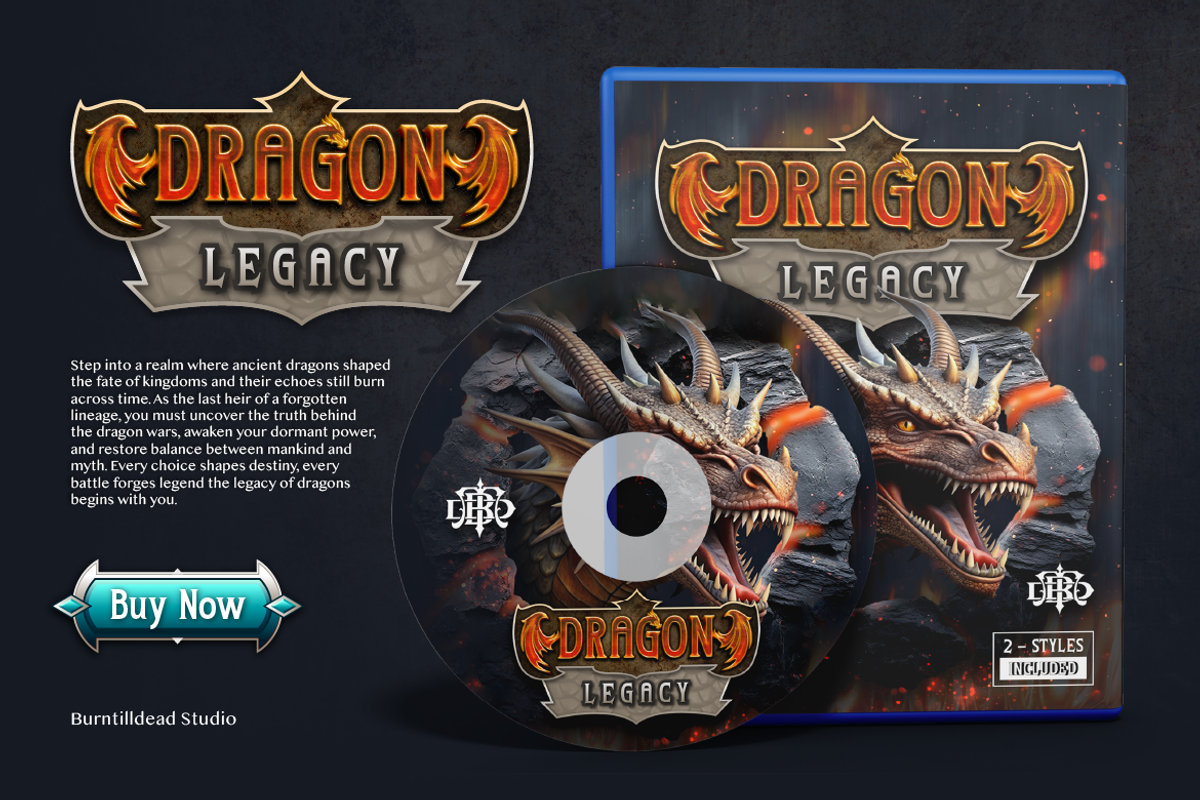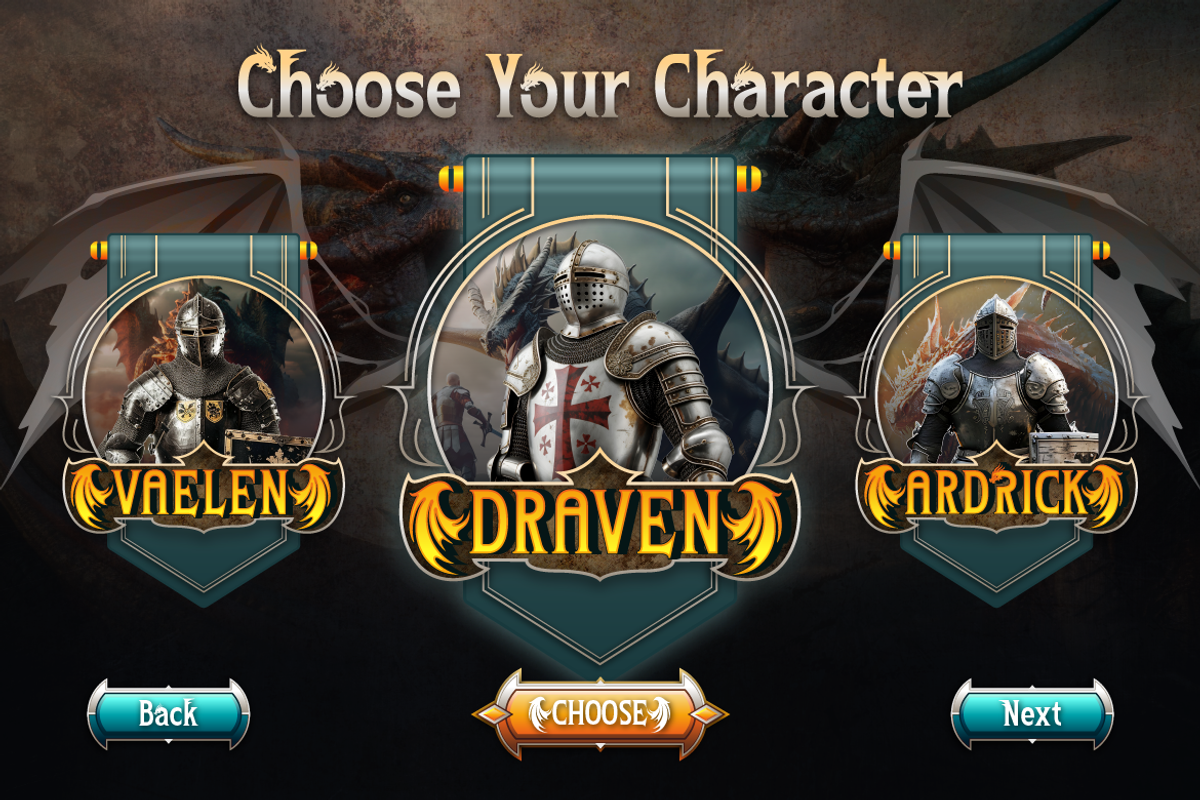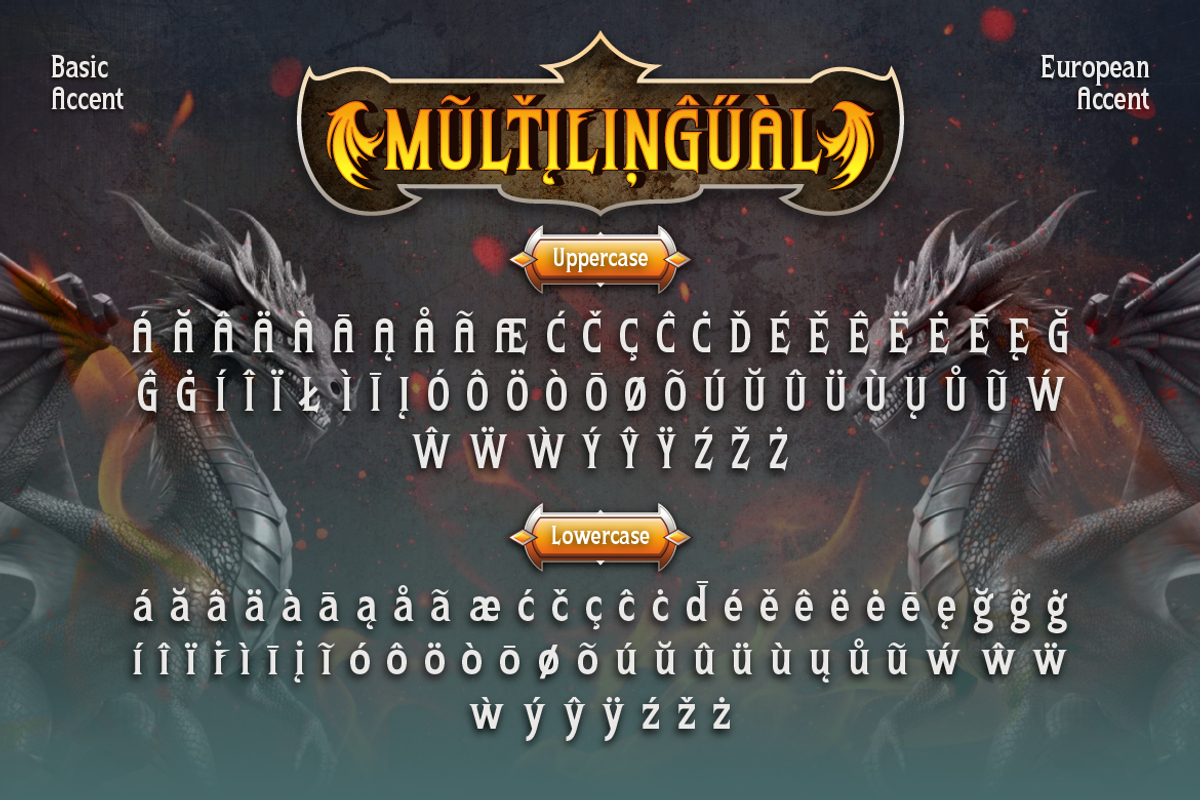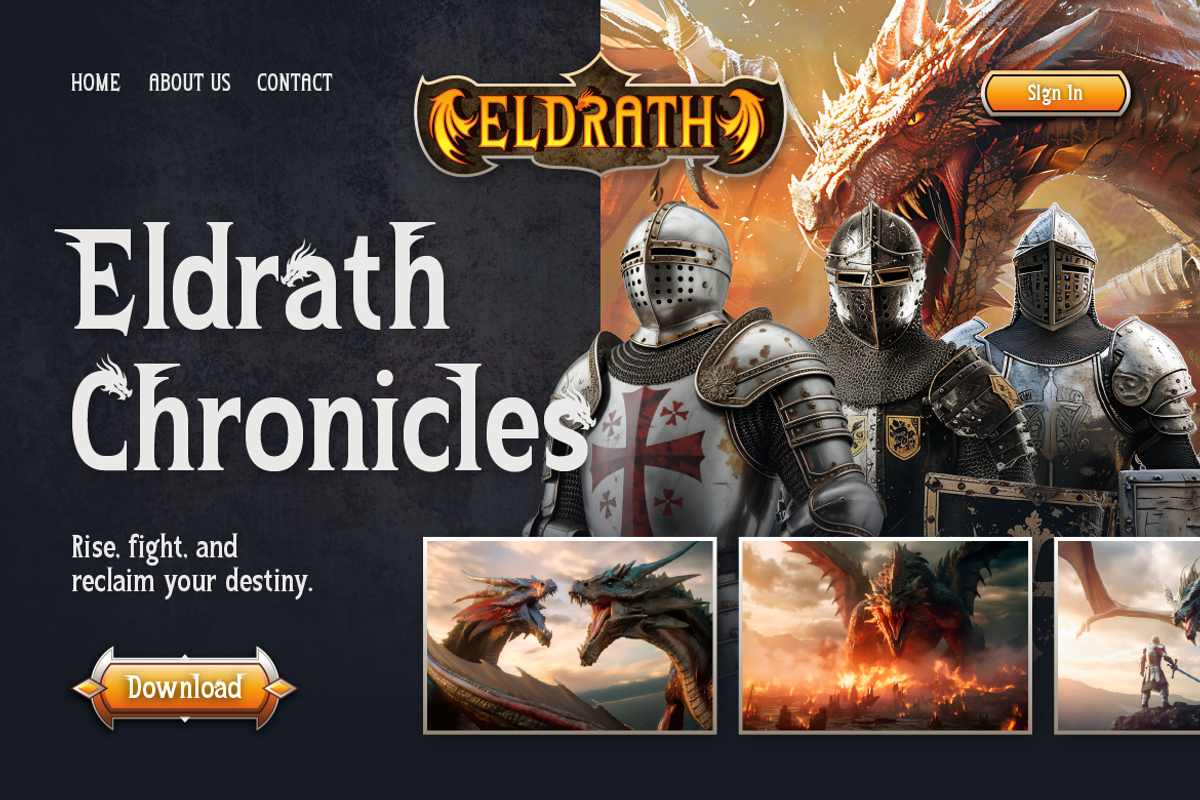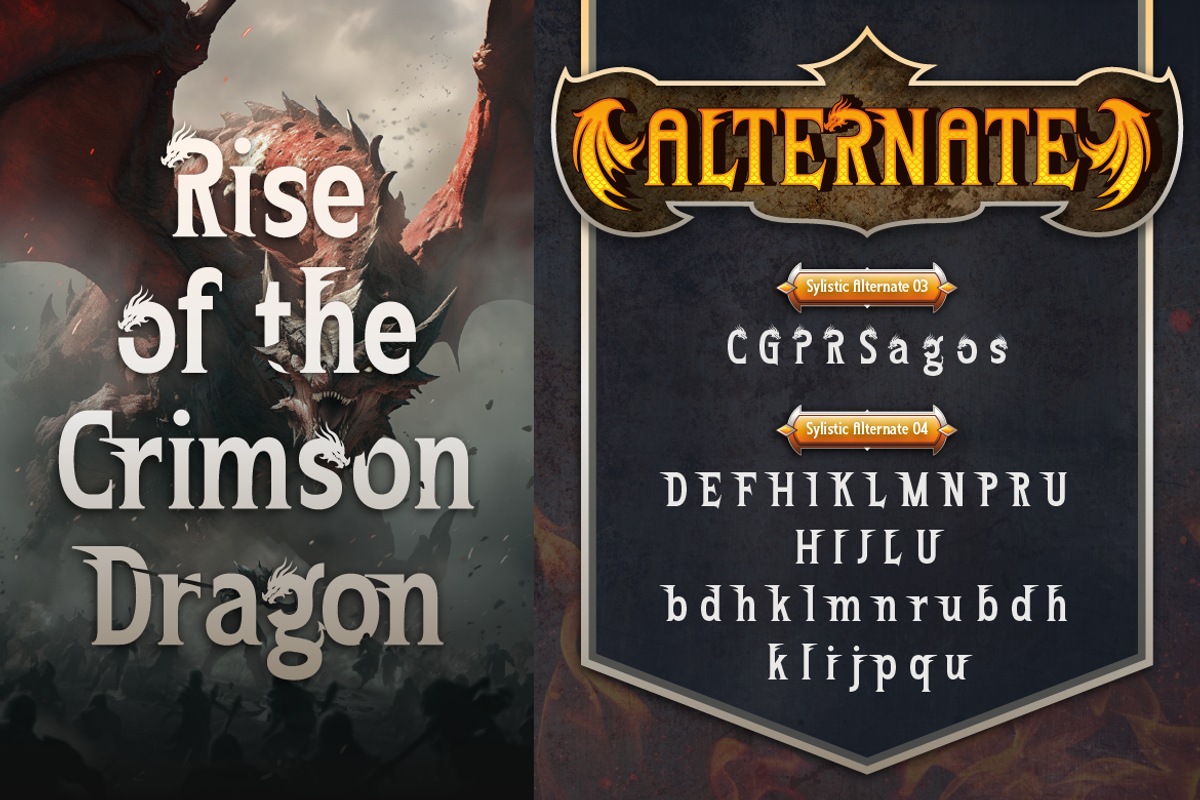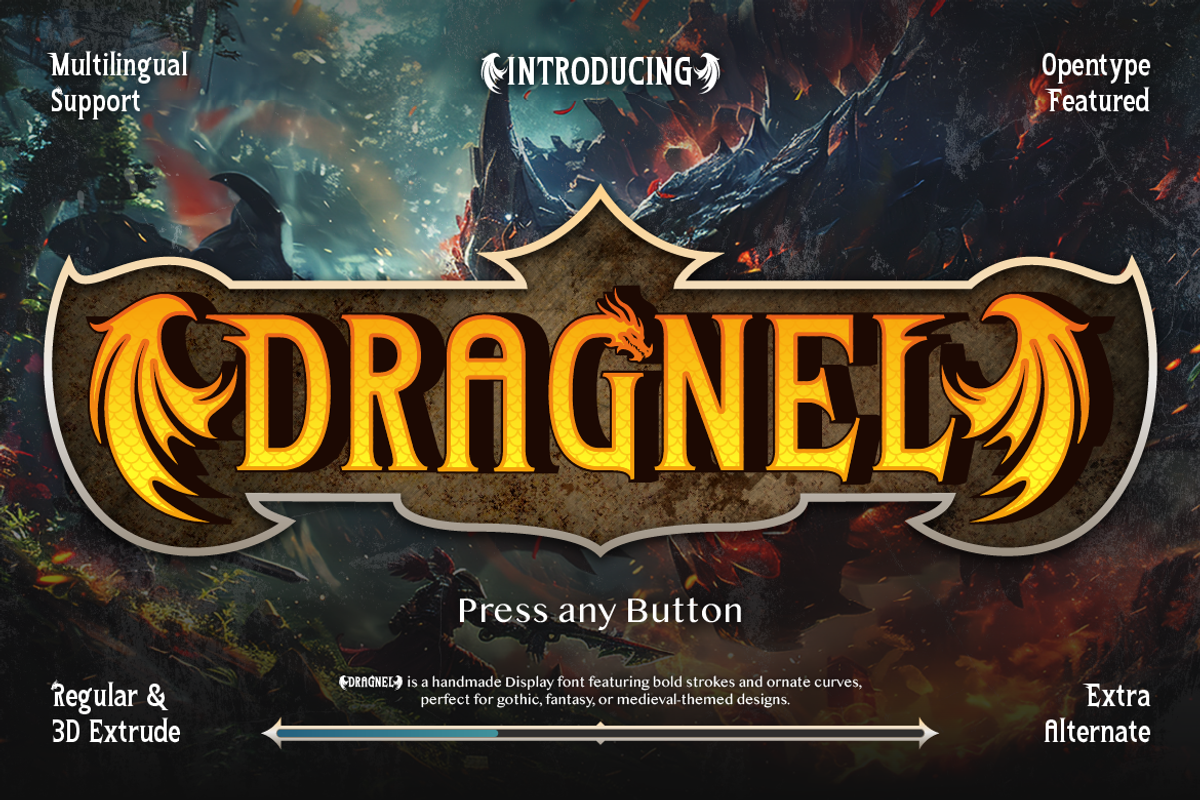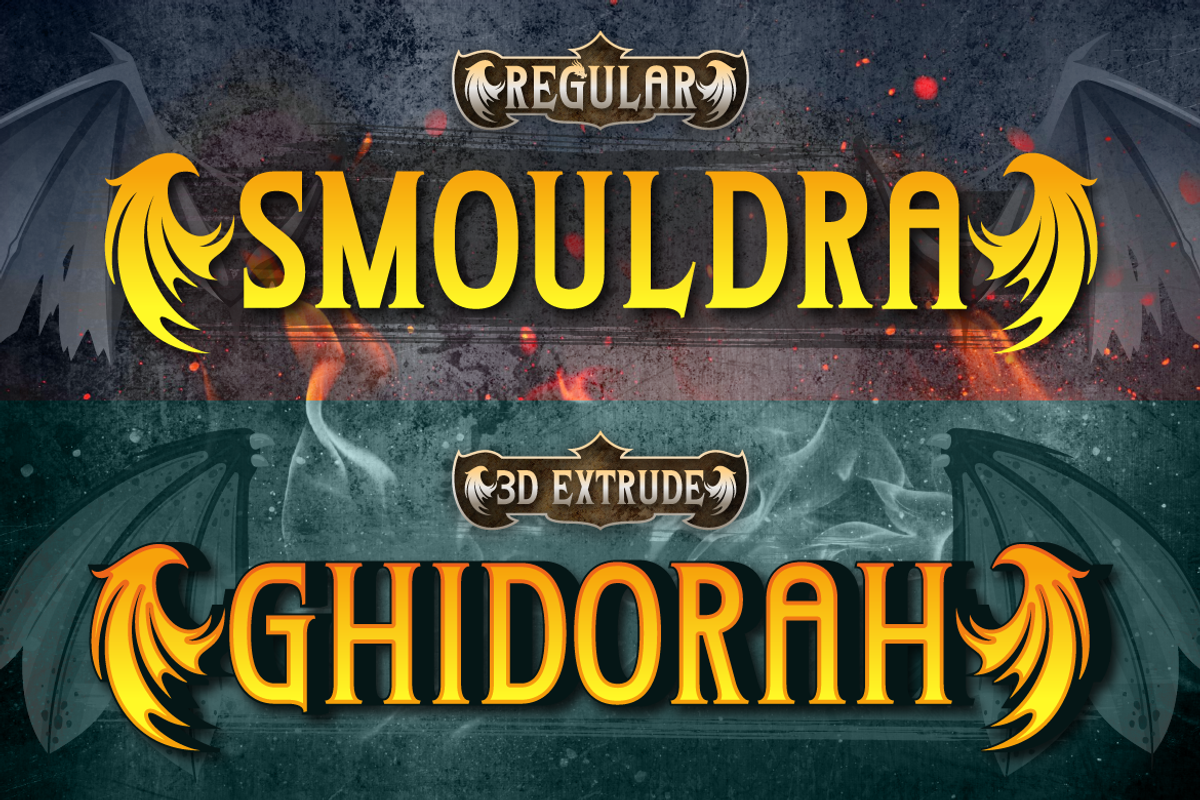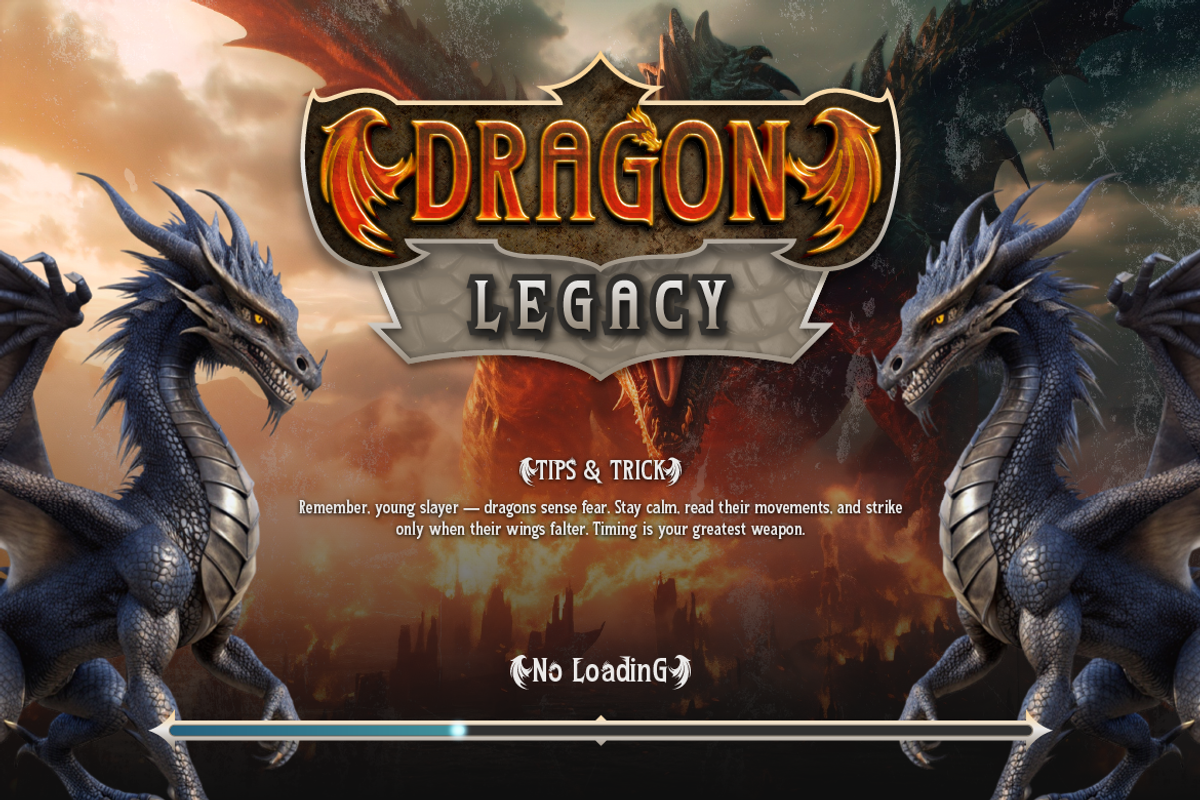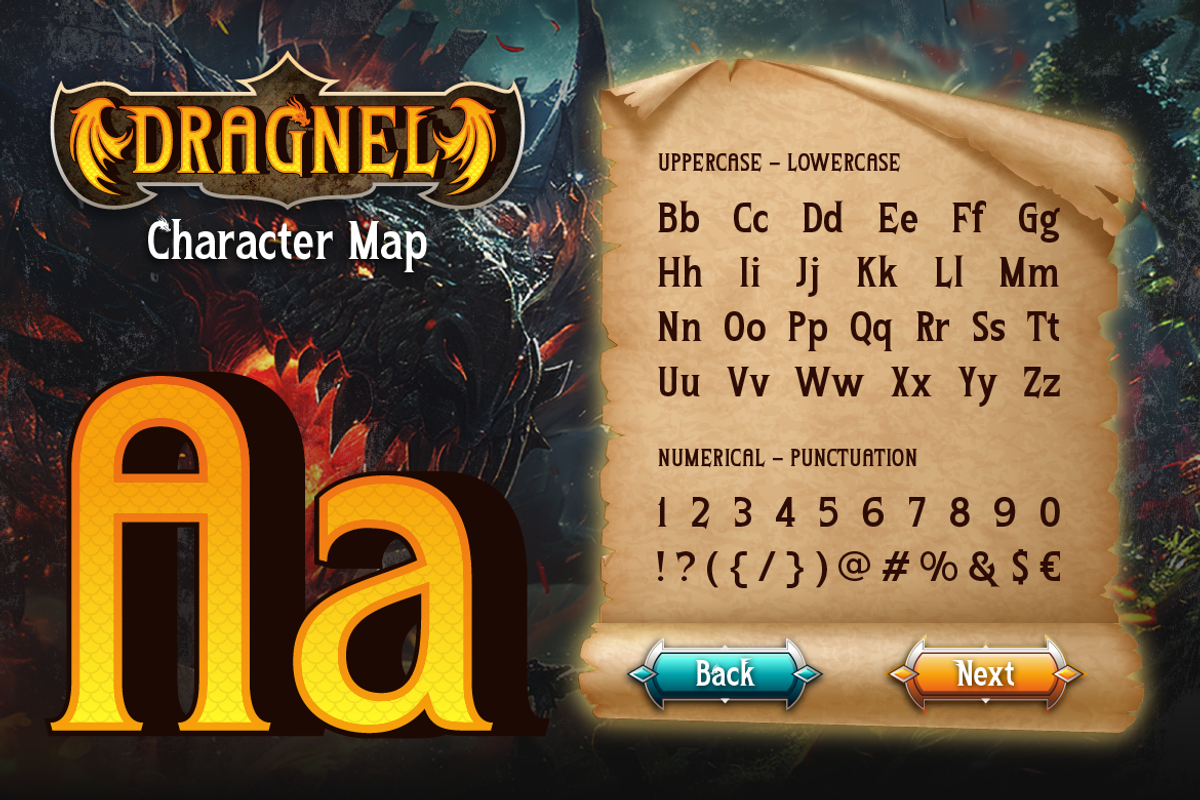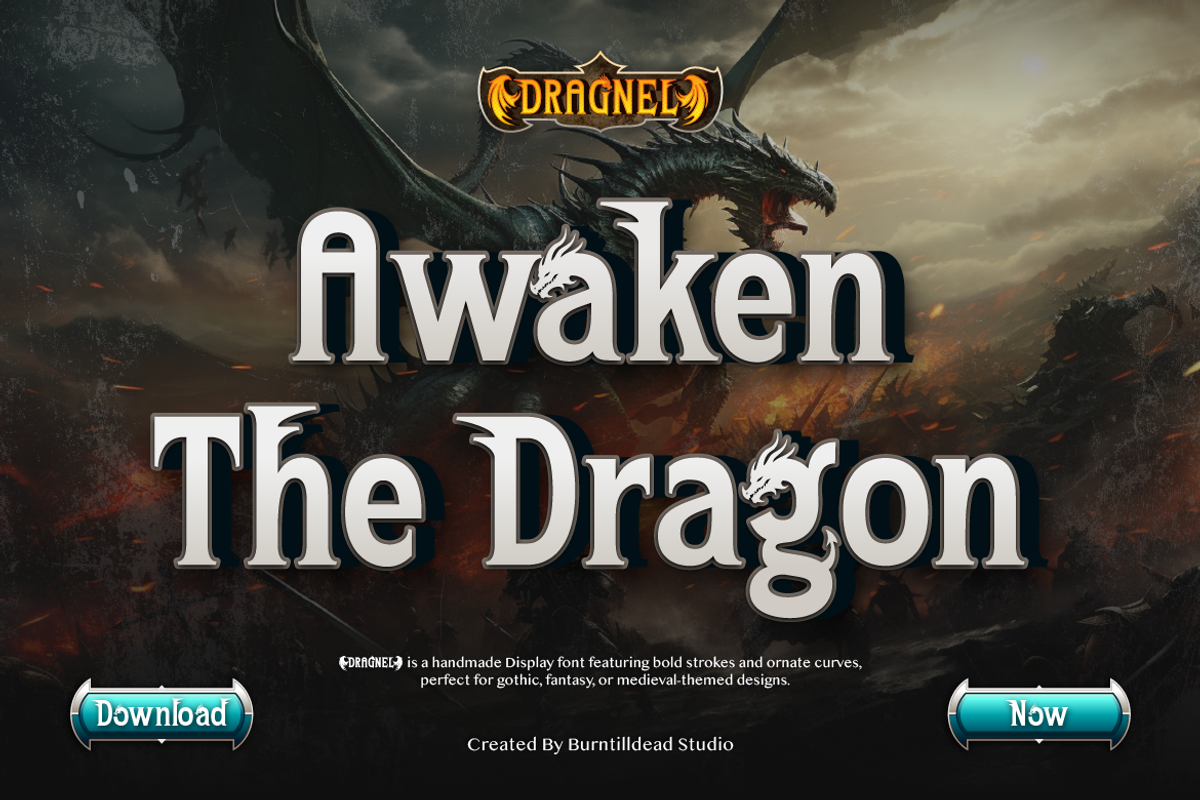
Dragnel
Unleash your inner hero with Dragnel, a bold fantasy display font forged in the fires of legend. Inspired by dragons, ancient warriors, and medieval adventures, this typeface roars with strength and courage. With its fiery curves and bold strokes, Dragnel is perfect for fantasy games, epic movie titles, book covers, or any design that needs that legendary touch. From ancient kingdoms to modern adventures, Dragnel brings your stories to life — one powerful letter at a time. Comes in Regular and 3D Extrude styles with extra alternates to give your design the magic it deserves.
A - Z set (Uppercase & Lowercase)
Number
Dragnel Character Map